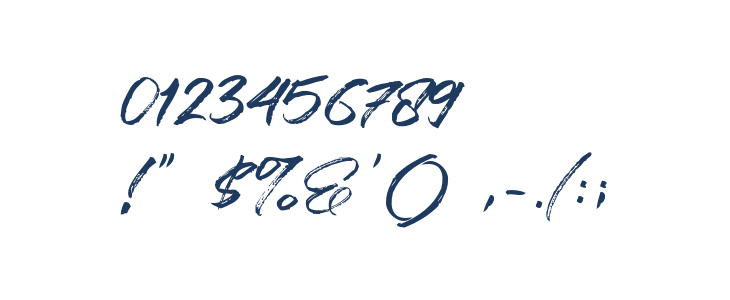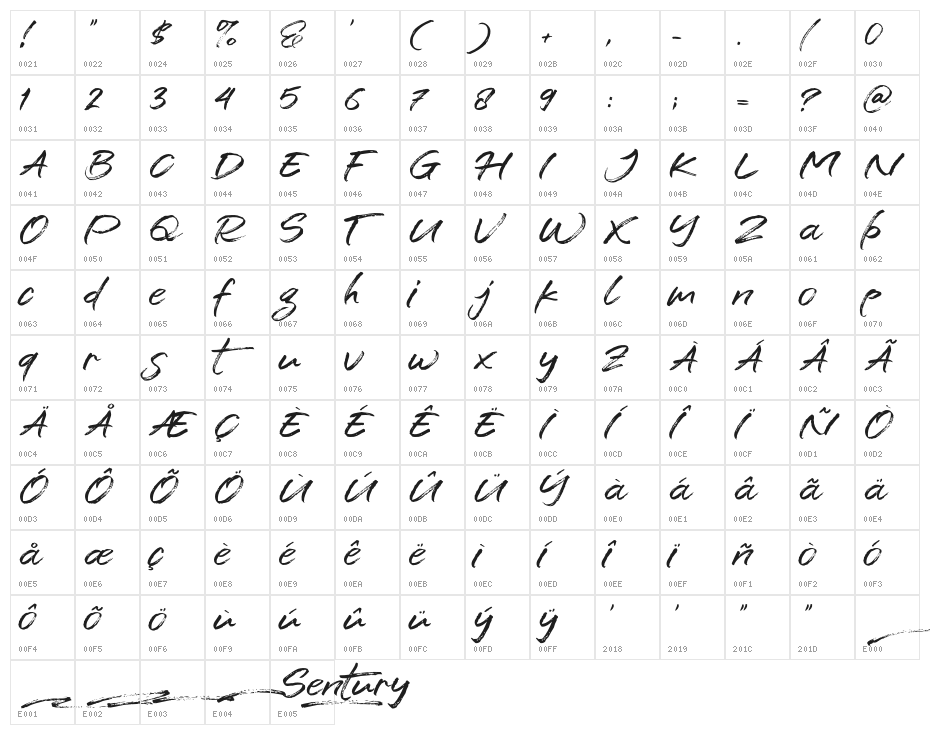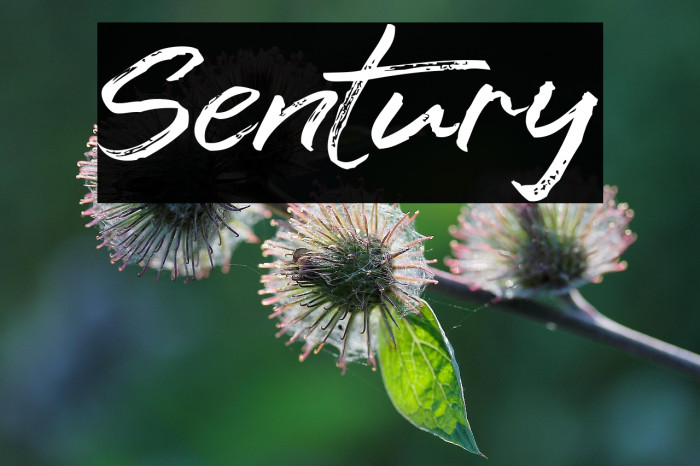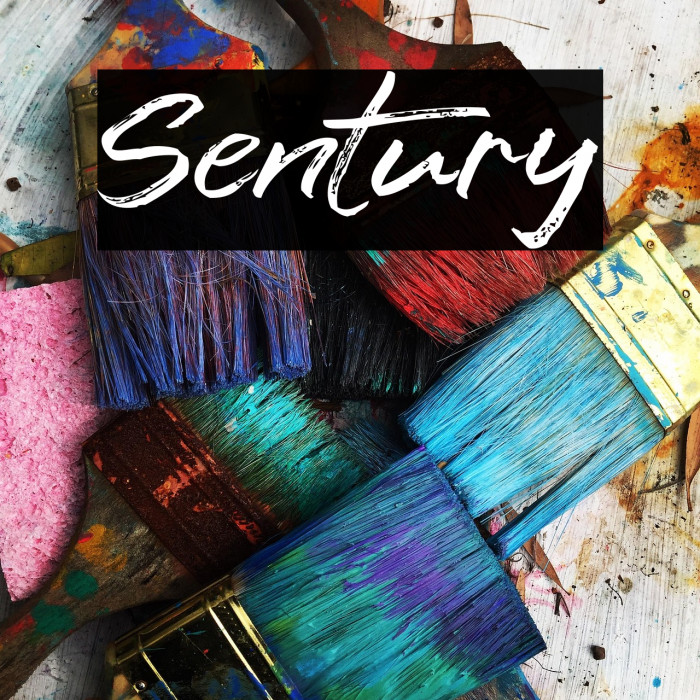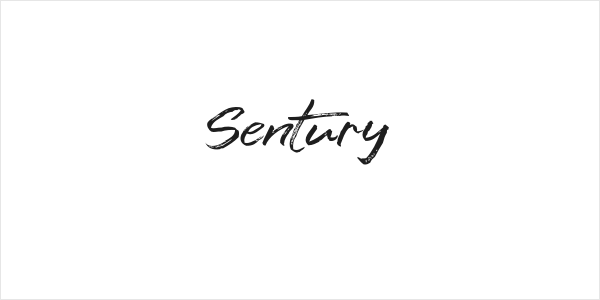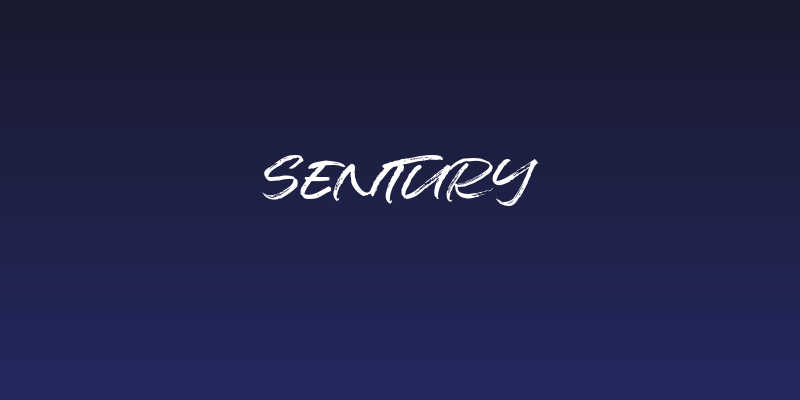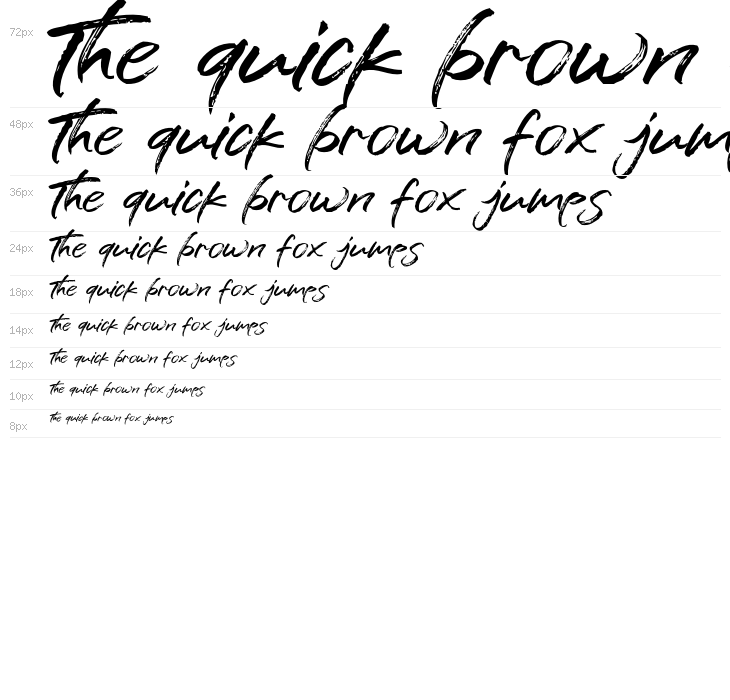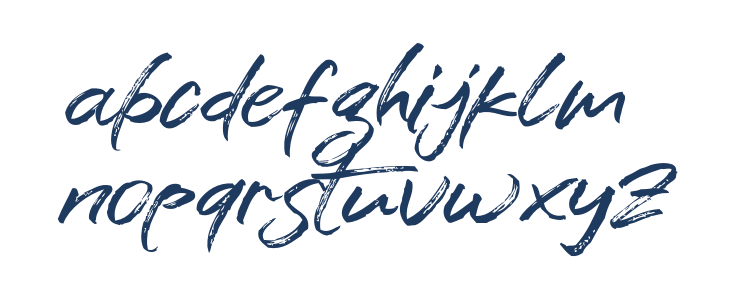
Sentury Font
Sentury Description
This font exudes a dynamic and expressive style, characterized by its brush-like strokes and fluid motion. The letters are crafted with a sense of spontaneity, giving them a lively and energetic appearance. The uppercase and lowercase letters maintain a consistent flow, while the numbers and special characters complement the overall aesthetic. The texture of the strokes adds a handcrafted feel, making it ideal for projects that require a personal touch. The font's organic and artistic nature makes it suitable for creative and informal applications.
| Use Case | Logos, Headlines, Posters |
| Proposed Projects | Ideal for branding, posters, invitations, and artistic projects that require a personal and creative touch. |